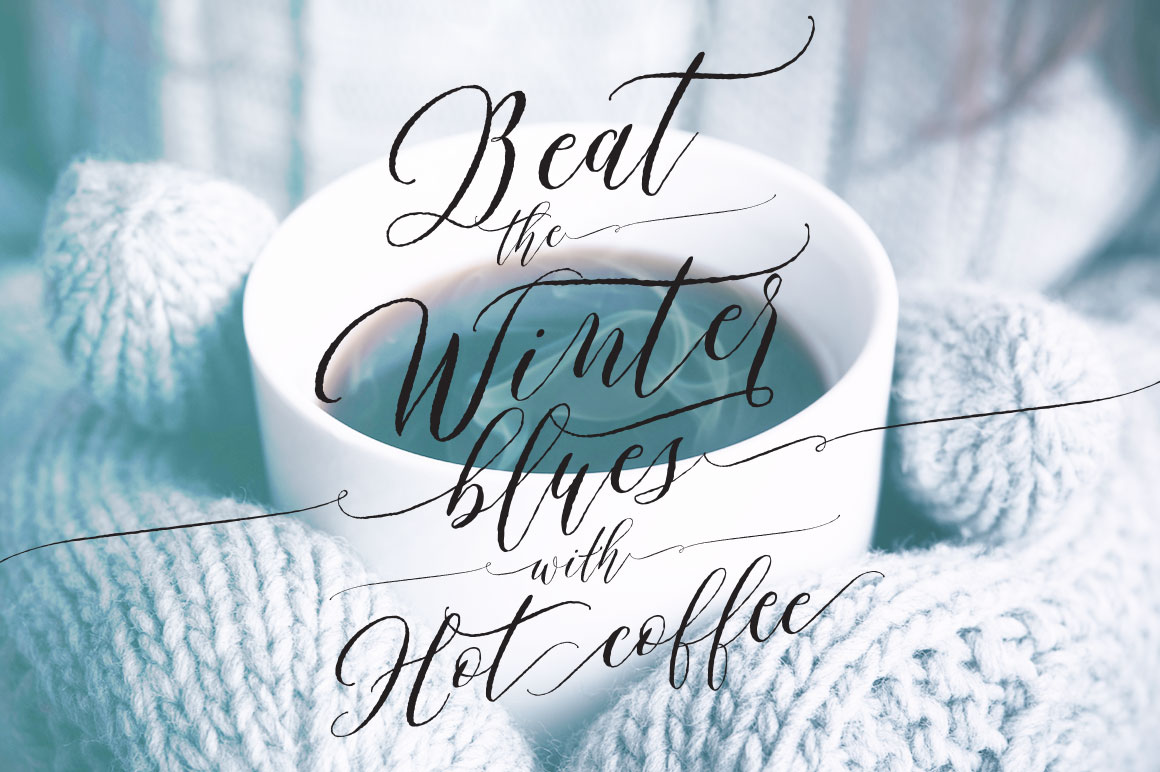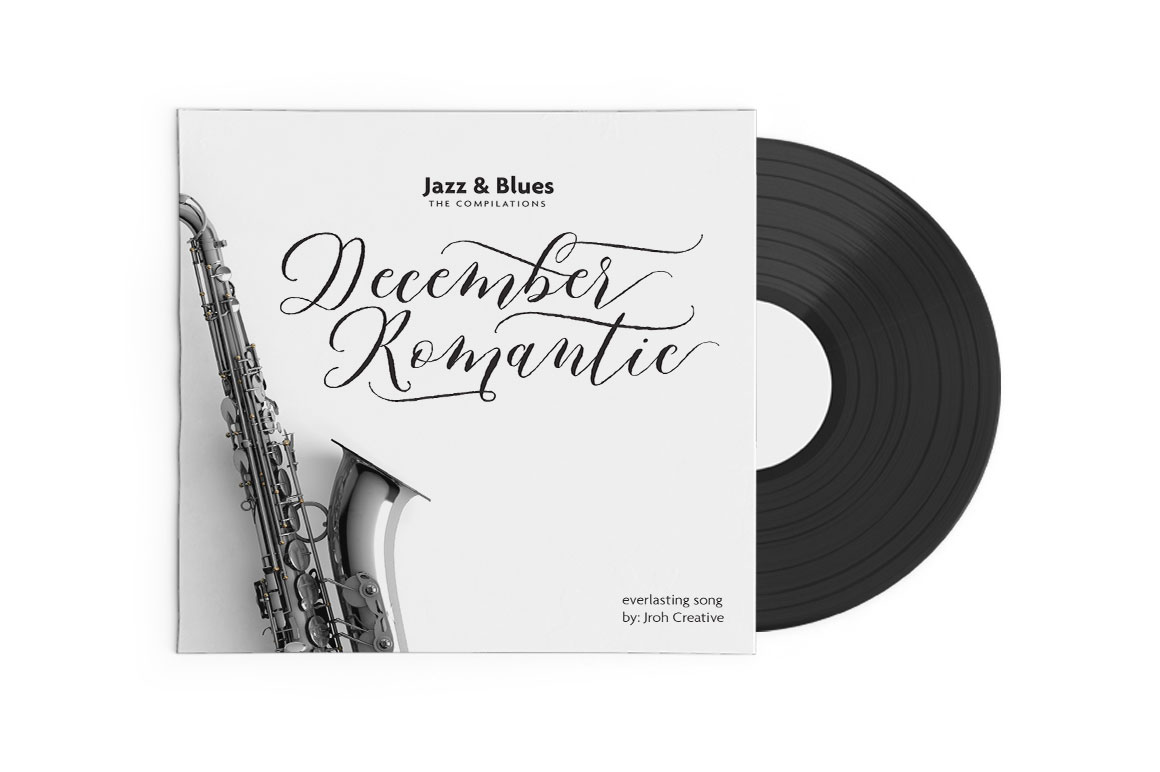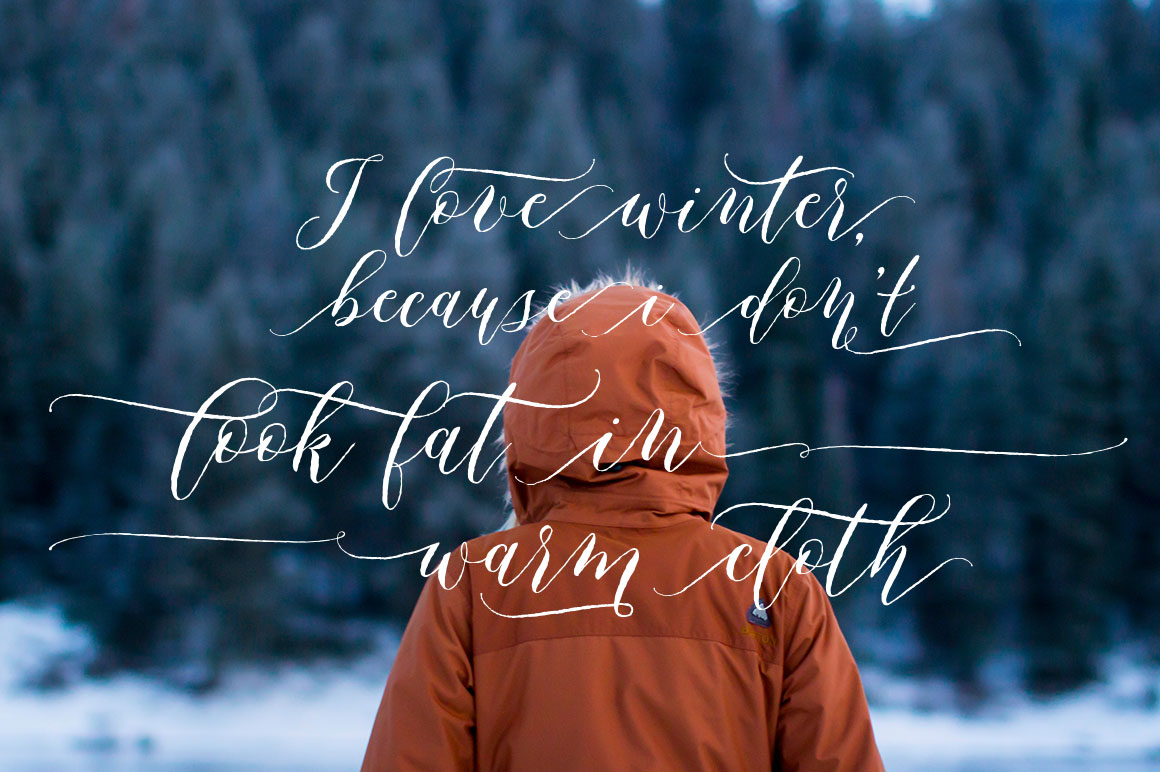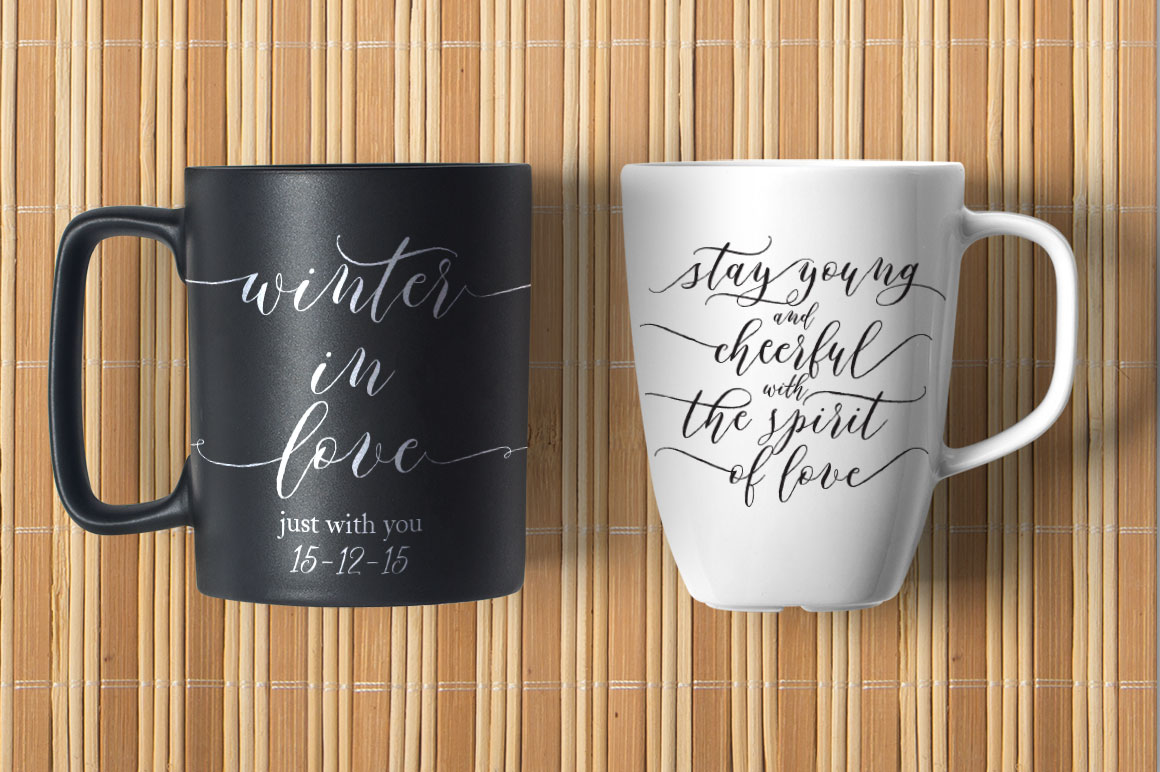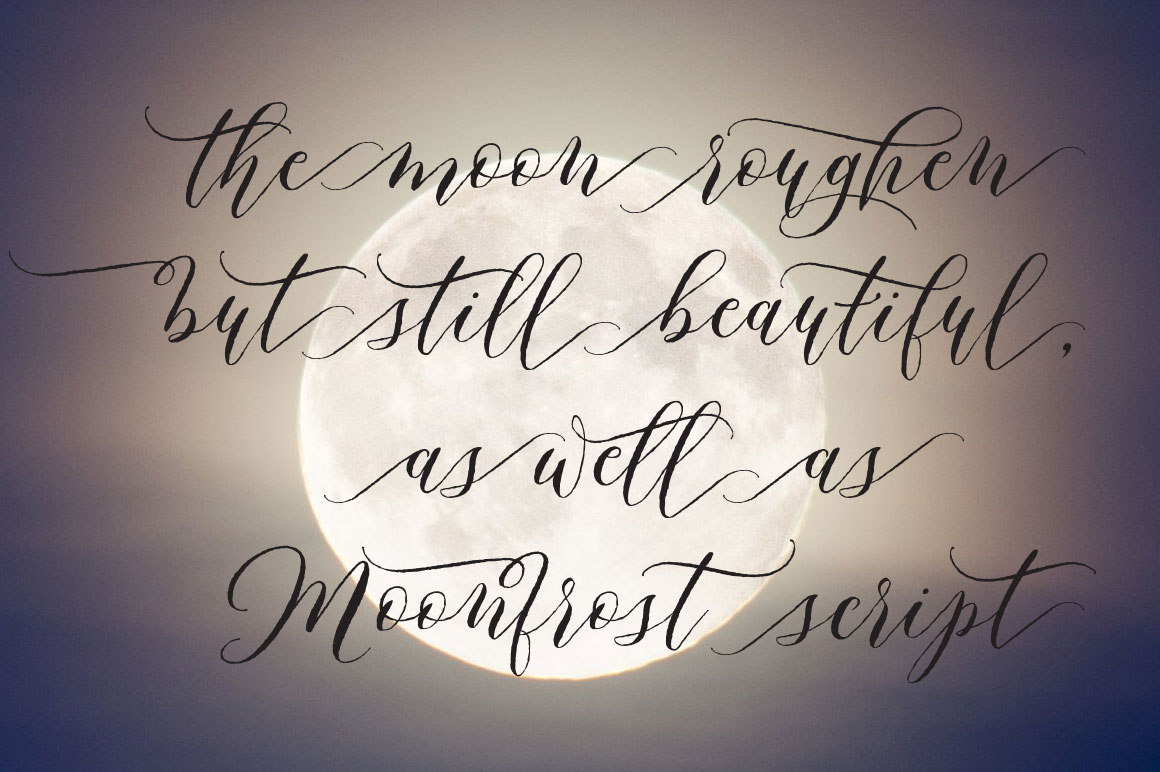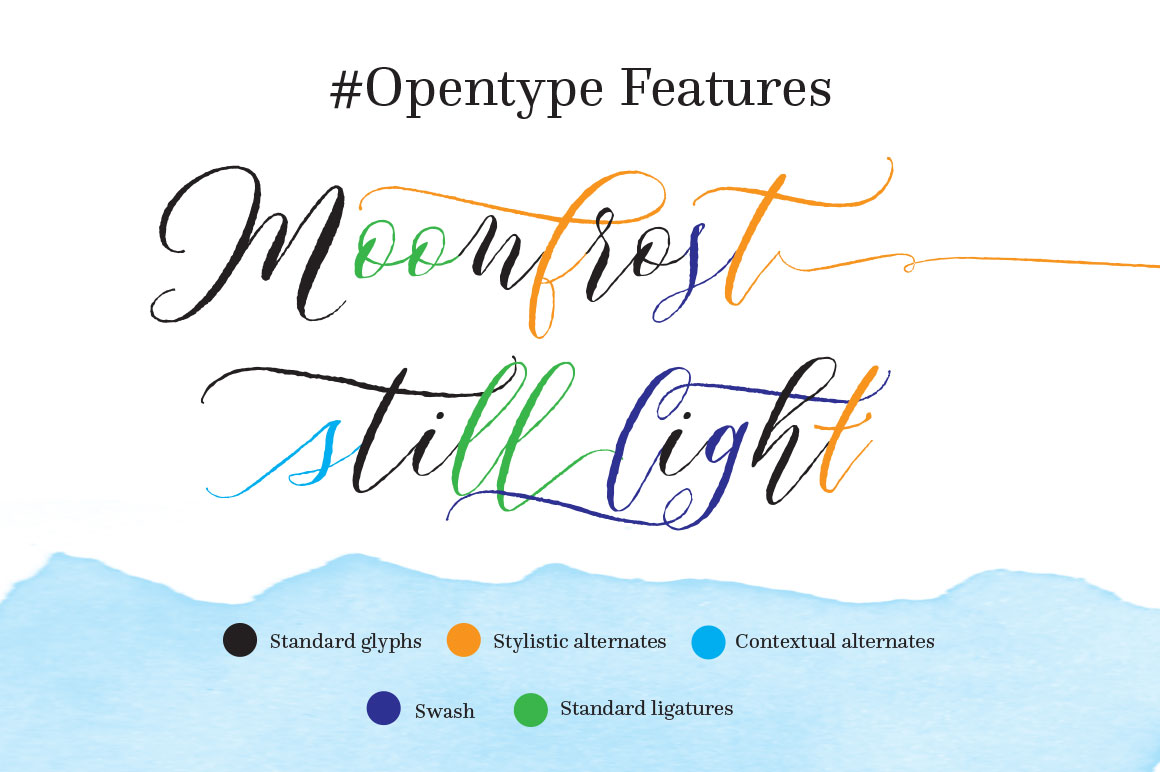
Introduction to Moonfrost Font
Remember the thrill of working on a creative project and stumbling upon the perfect design element that elevates your entire concept? For many designers, that moment comes when they discover a unique font that adds an extra layer of depth and emotion to their work. For those seeking a handwritten font that truly stands out, we’re excited to introduce the Moonfrost Font – a stunning, high-quality design resource that’s about to become your go-to companion.
With over 440 unique glyphs, Moonfrost Font offers unparalleled flexibility and creative freedom. Whether you’re working on a design project that requires a transparent background or a free download that you can use across multiple platforms, this versatile font is sure to meet your needs and exceed your expectations.
As a valuable resource for designers, the Moonfrost Font is an essential addition to any design toolkit. Its unique aesthetic and high-quality design make it an ideal choice for a wide range of creative projects, from branding and marketing materials to digital art and publications.
Key Features of Moonfrost Font
- Unique, elegant design suitable for various creative projects, including invitations, logos, and branding materials.
- High-quality, vector-based font with transparent background, allowing for seamless integration into any design.
- Designed with precision and attention to detail, Moonfrost Font offers a crisp resolution of 300 DPI, suitable for print and digital applications.
- Its modern aesthetic and sophisticated feel make it an ideal choice for designers seeking a stylish and professional look.
- Perfect for use in various design contexts, from wedding invitations and business cards to digital displays and signage.
Honest Review: Moonfrost Font
I recently stumbled upon the Moonfrost Font, and I must say it’s a lovely addition to any creative project. The high quality of this font is evident in its clean lines and elegant curves, making it perfect for designing beautiful typography.
- ✨ What works well: The Moonfrost Font is incredibly versatile and can be used for a wide range of design projects, from invitations to logos and even book covers.
- ✨ The font also comes with a transparent background, which makes it easy to overlay on images or use with a colored background.
One of the best things about the Moonfrost Font is that it’s a free download, making it an excellent design resource for anyone on a budget. However, I do wish the font family was more extensive, with more styles and weights to choose from.
- ⚠️ Limitation: As a free font, the Moonfrost Font may not be as polished as some of the more premium font options available.
- ⚠️ Another limitation is that the font family is relatively small, with only a few styles and weights available.
Overall, I think the Moonfrost Font is a great addition to any designer’s toolkit. It’s a high-quality font that’s perfect for any creative project, and its free download makes it an excellent design resource for anyone on a budget.
The Moonfrost Font is ideal for creative projects that require a high-quality, transparent background design resource. It’s perfect for use in branding materials, social media graphics, and web design.